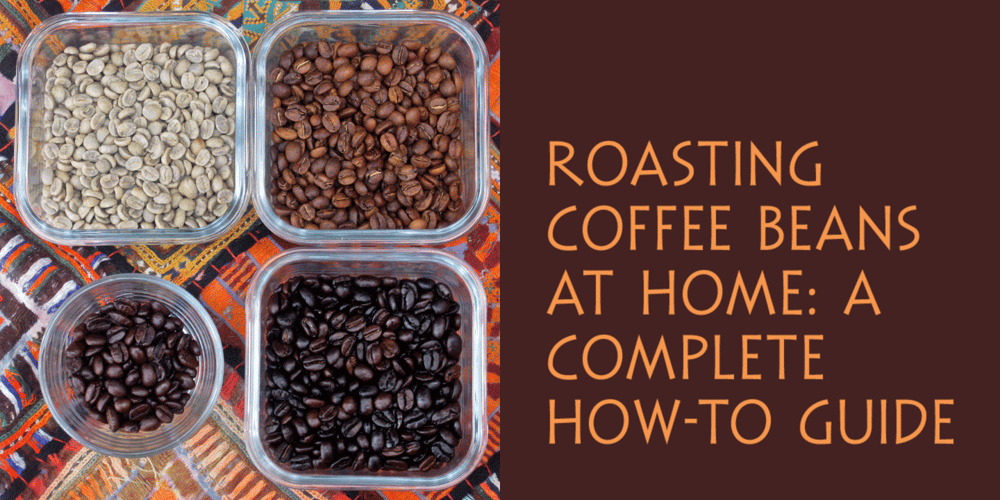
Minotaur Font Family was designed by Jason Castle and published by CastleType. Minotaur contains 1 styles and family package options. Minotaur is an original monoline design based on an Oscan (http://en.wikipedia.org/wiki/Oscan_language ) votive inscription from the second century B.C.E. The letterforms immediately caught my eye in the wonderful book, Lettering by Hermann Degering, and I decided to create a typeface based on them with only enough compromises to make it usable as a modern alphabet. Not quite as straightforward as I had hoped. For example, the Oscan language (the predominant language in the Italian peninsula before the ascendance of Latin), has no letter “O”, so the distinctive curve of the “D” was used as the model for the rounded letters “C” and “G” and more subtly for “O” and “Q”; this shape is also echoed in the original design of “B”, “P” and “R”. Also, the Oscan letterforms for A, K, L, M, N, S, and U are rather quaint, so I’ve included modern forms as alternates. Minotaur offers the best of both worlds: Just as the mythical Minotaur is half man and half bull, the font Minotaur is half modern and half ancient. Thanks to OpenType features (stylistic sets), you can easily switch from ancient letterforms to modern (if you have an OpenType-savvy application such as Adobe InDesign) for Latin, Greek, and Cyrillic alphabets. Minotaur supports all modern European languages, including Modern (monotonic) Greek and those that use the Cyrillic alphabet. And, yes, it supports Oscan, both right-facing and left-facing. Minotaur includes 3 OpenType Stylistic Sets: 1 – converts ancient (default) letterforms (A, K, L, M, N, S, and U) to modern alternates; 2 – converts Latin letterforms to equivalent left-facing (standard) Oscan letterforms; 3 – converts Latin letterforms to equivalent right-facing Oscan letterforms.